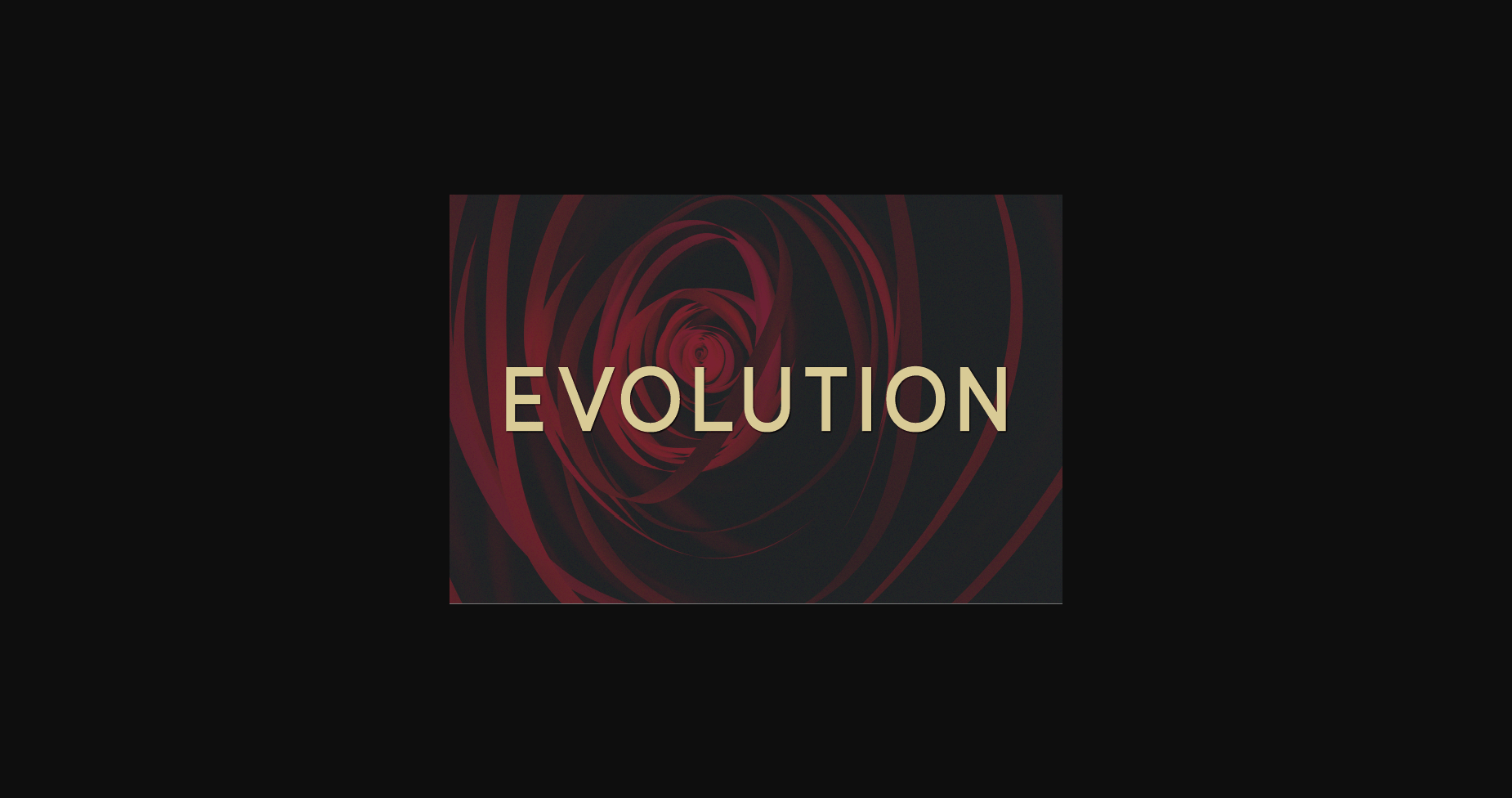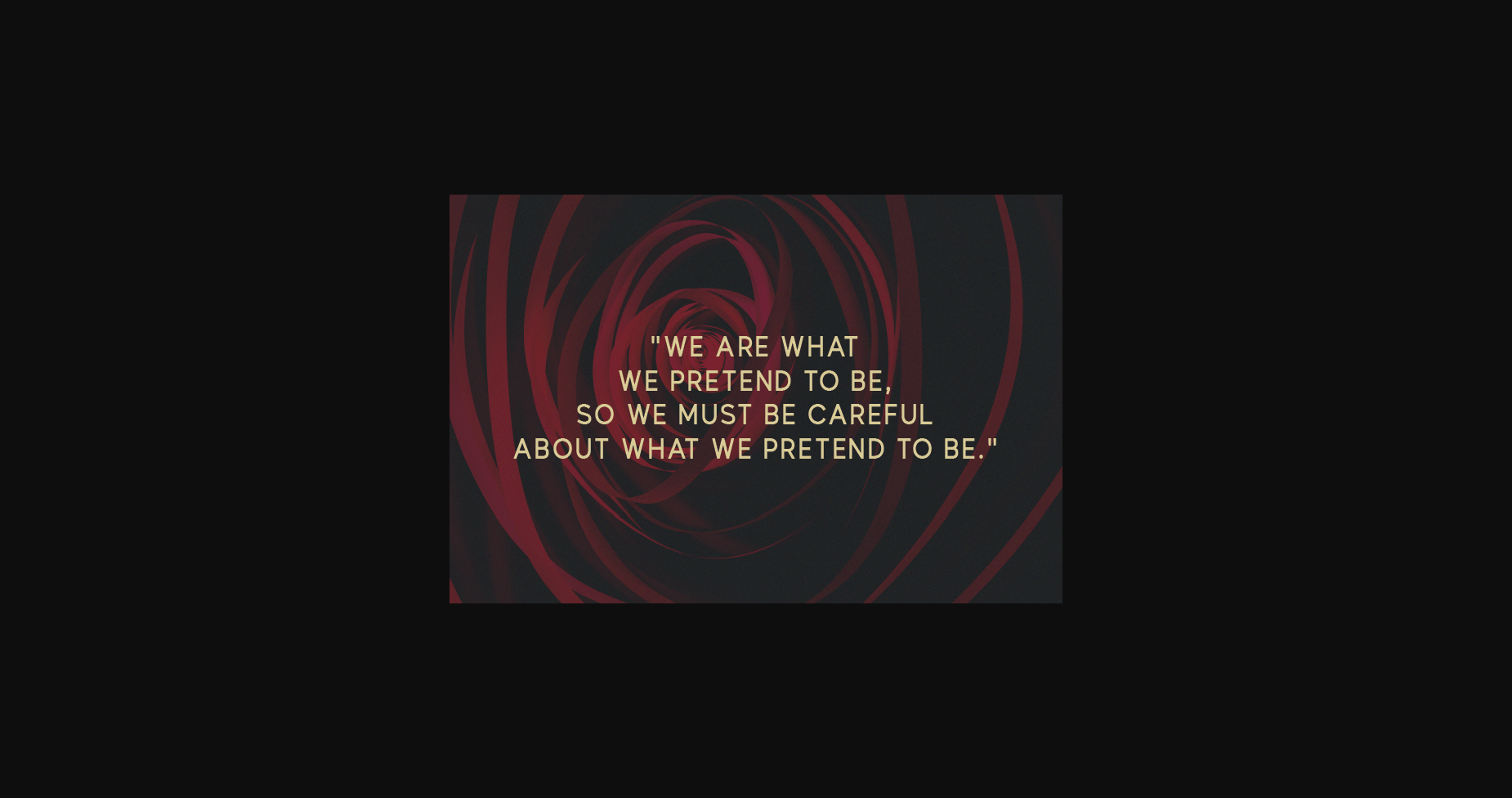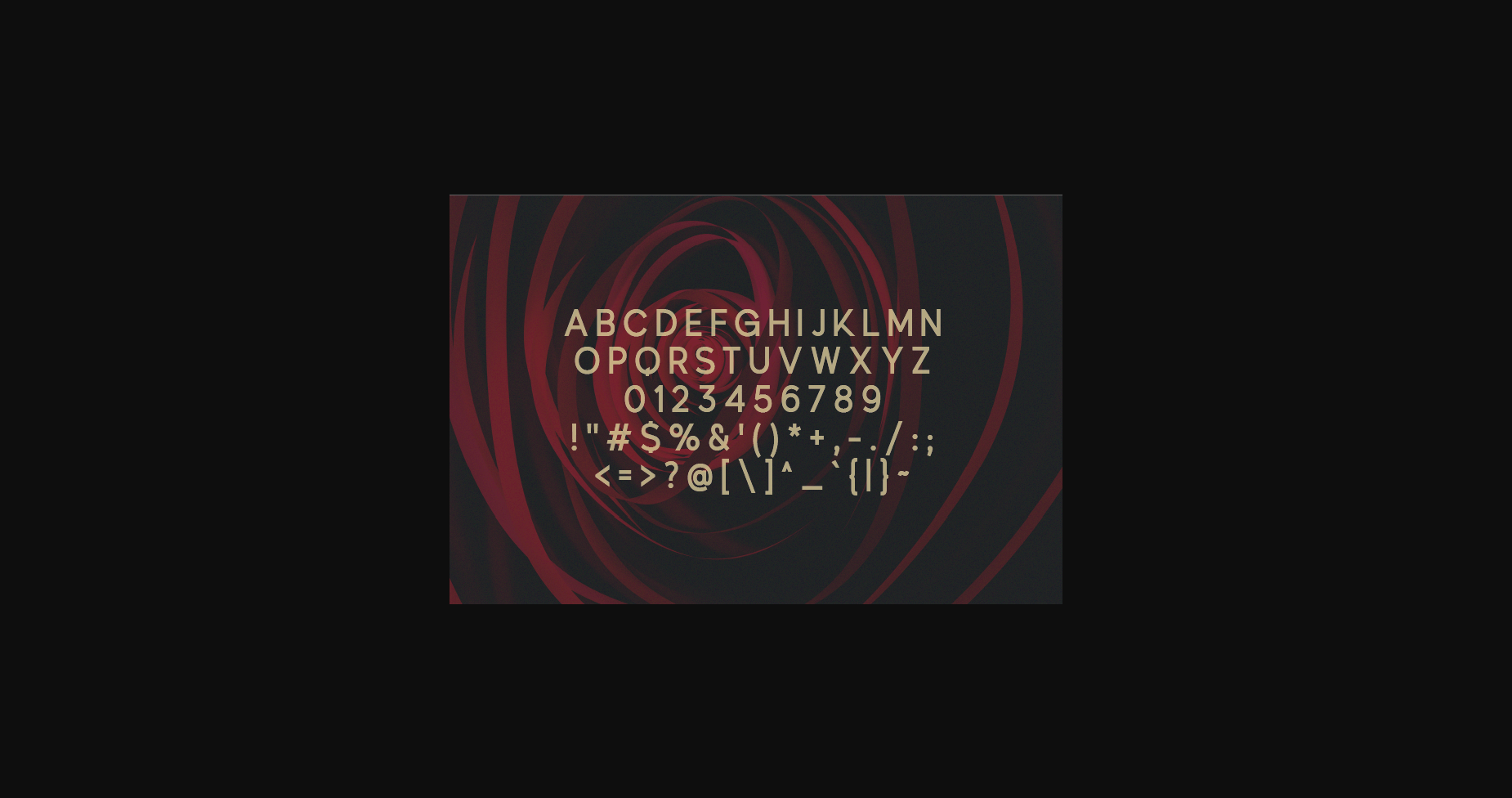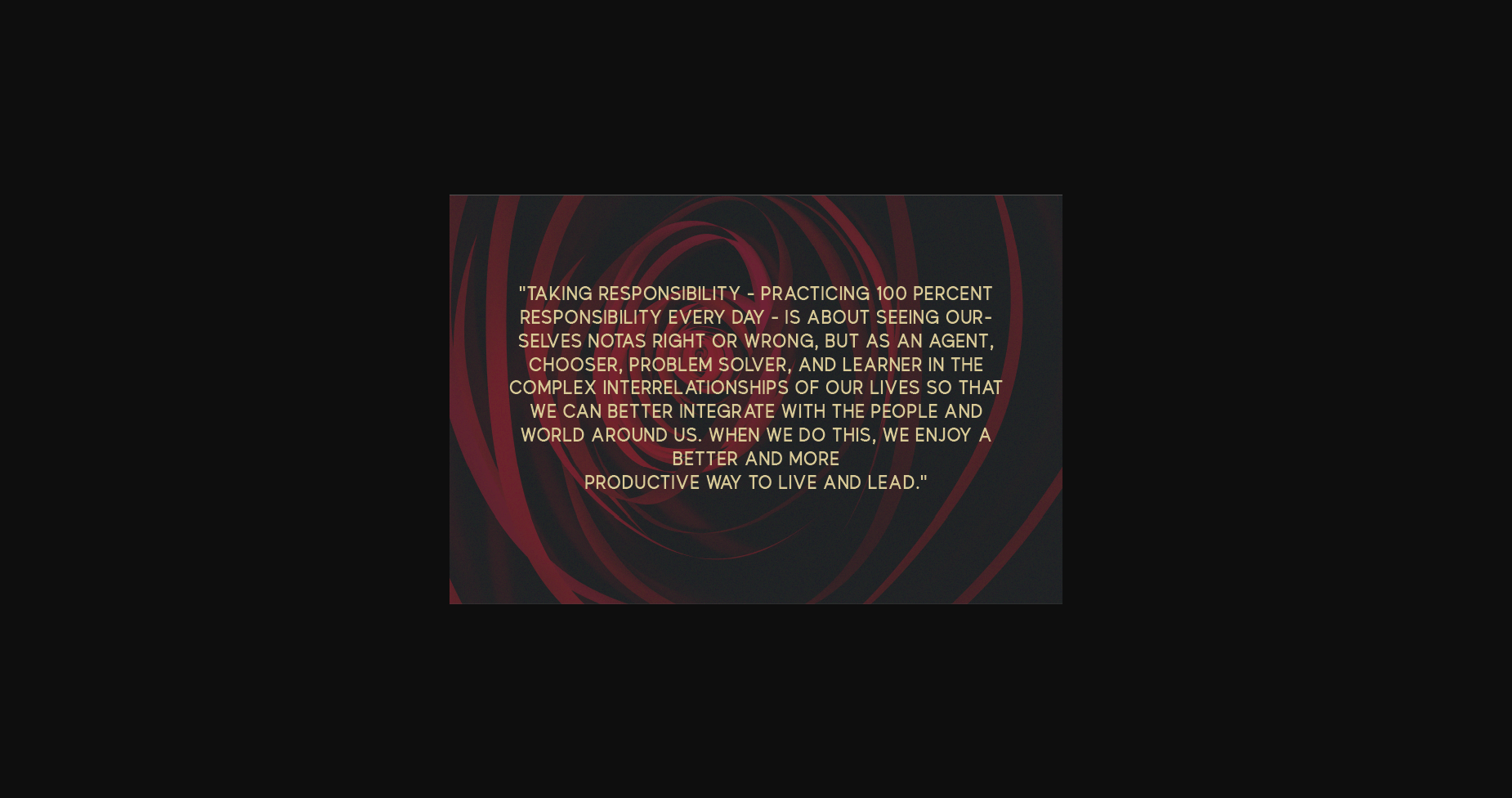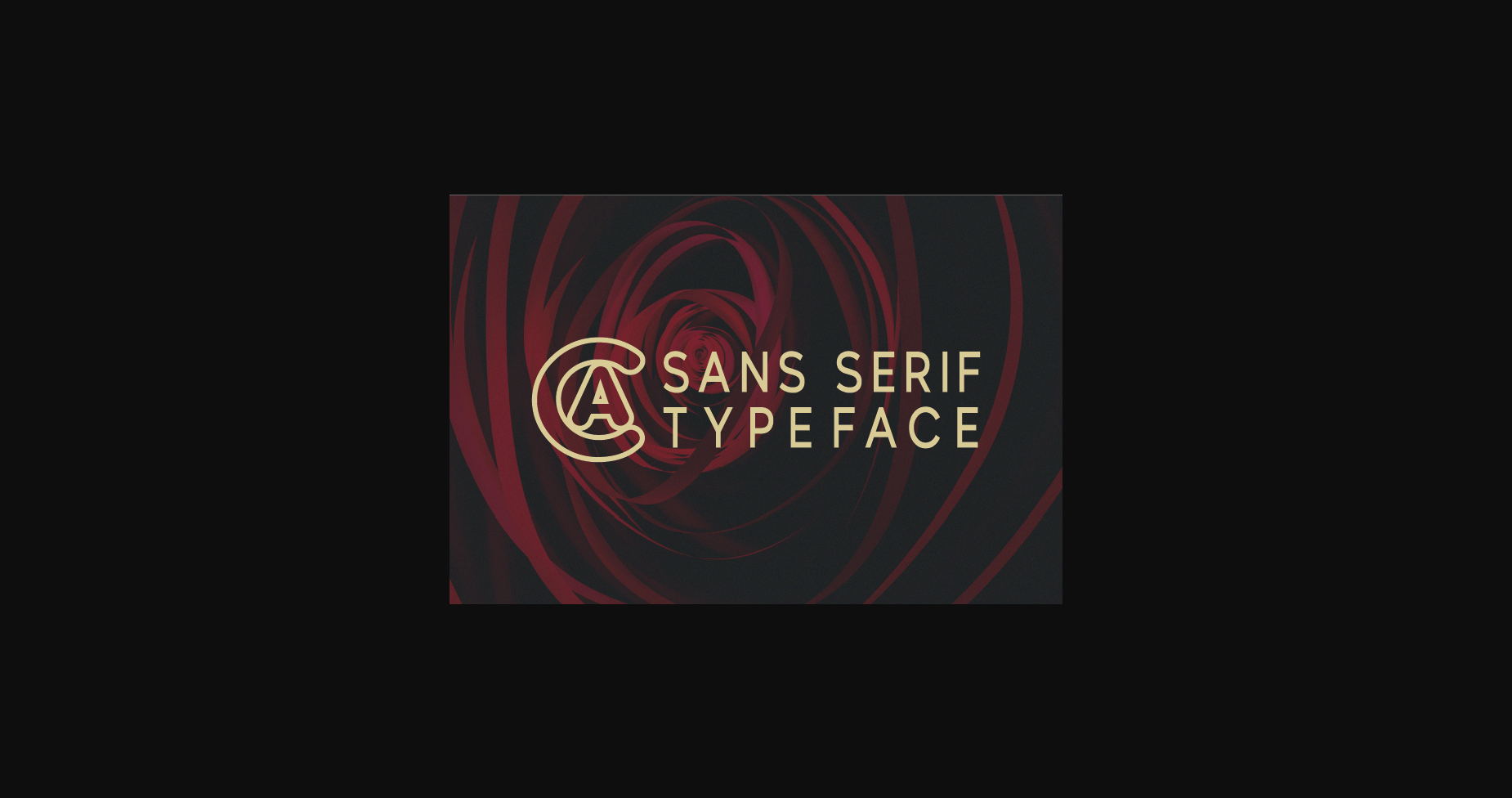
Evolution Font
About Evolution Font
Introducing Evolution, a modern, classy sans serif typeface.
An extremely versatile font, perfect for logos, weddings, invitations, quotes, advertisements, print, magazines, and more!